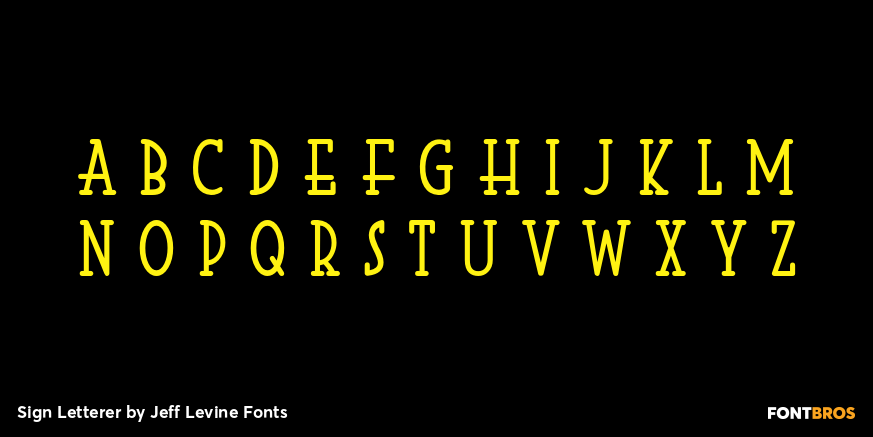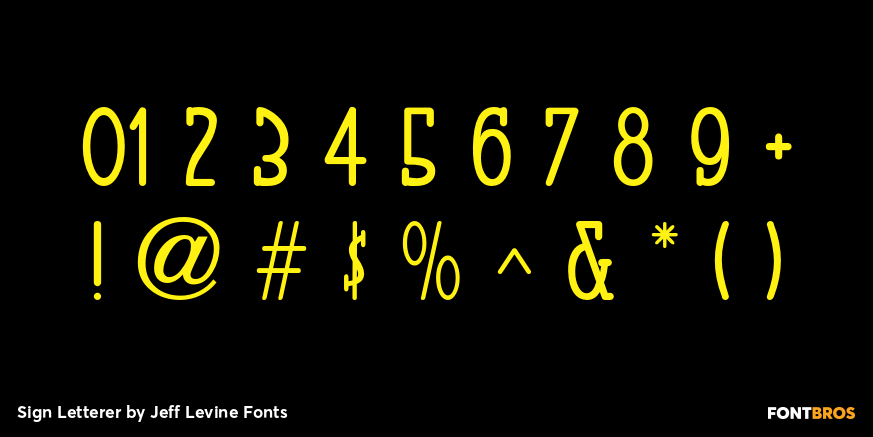
Sign Letterer
Sign Letterer JNL is the serif version of the Art Deco hand-lettering of Sign Painter JNL – and inspired by original pen lettering found on an old decal catalog sheet from the late 1940s – early 1950s.